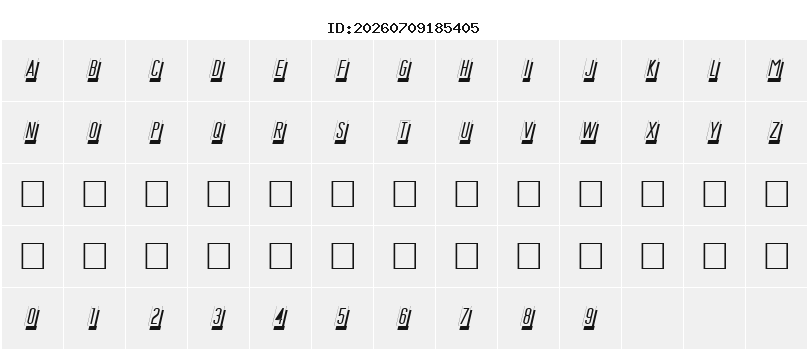
About DG_MasterCard.ttf
DG_MasterCard.ttf is a modern, elegant sans-serif font designed for ultimate readability and visual harmony. Perfect for branding, headlines, web design, and print materials.